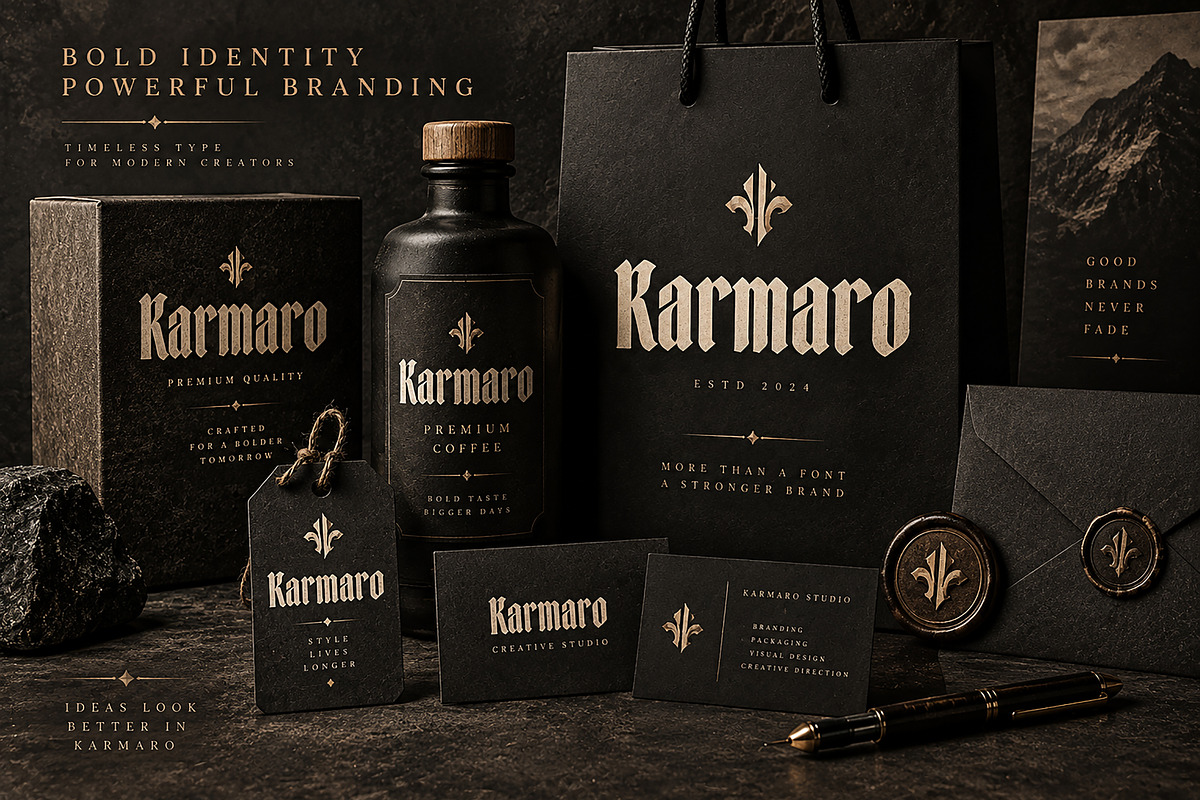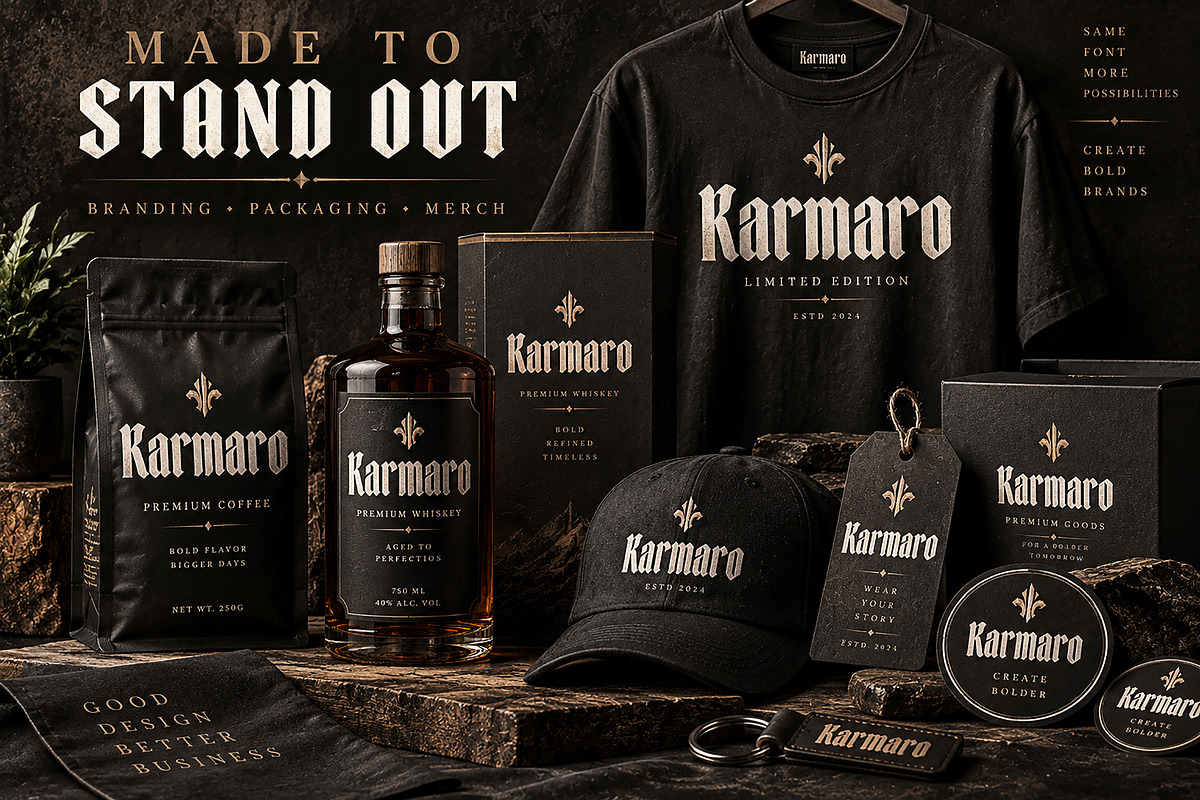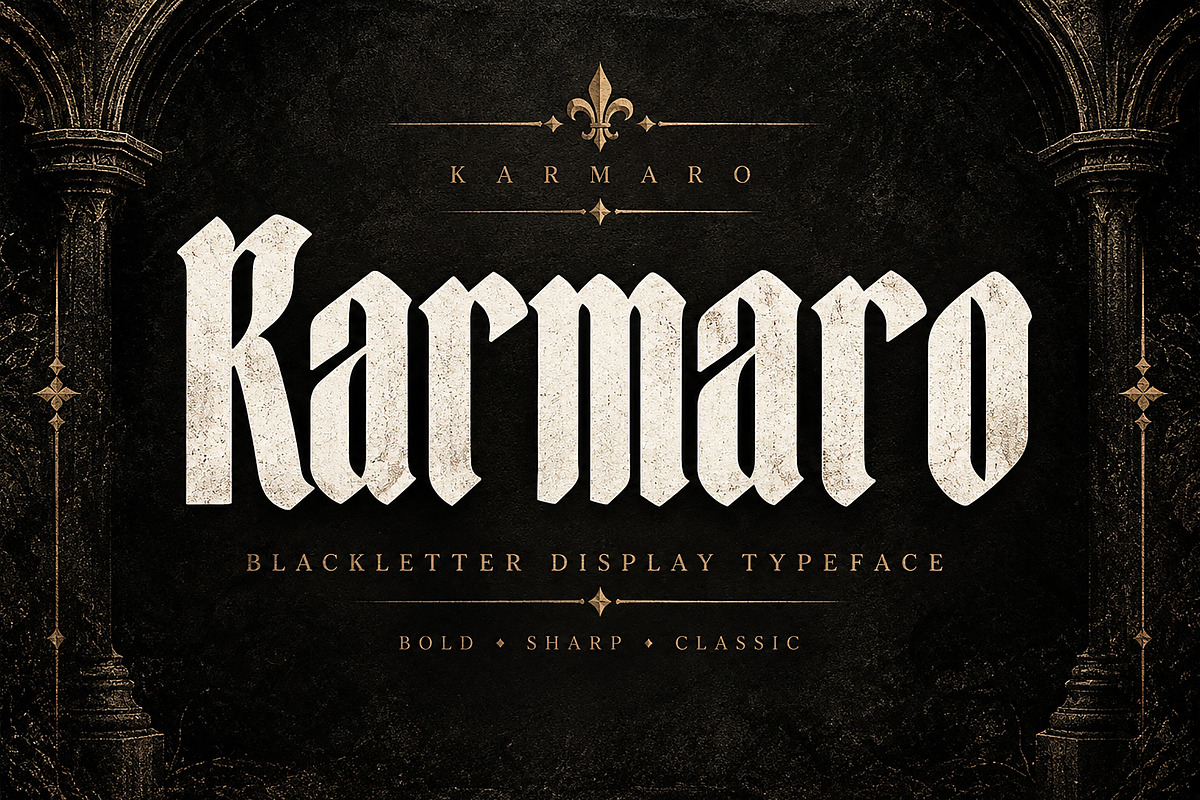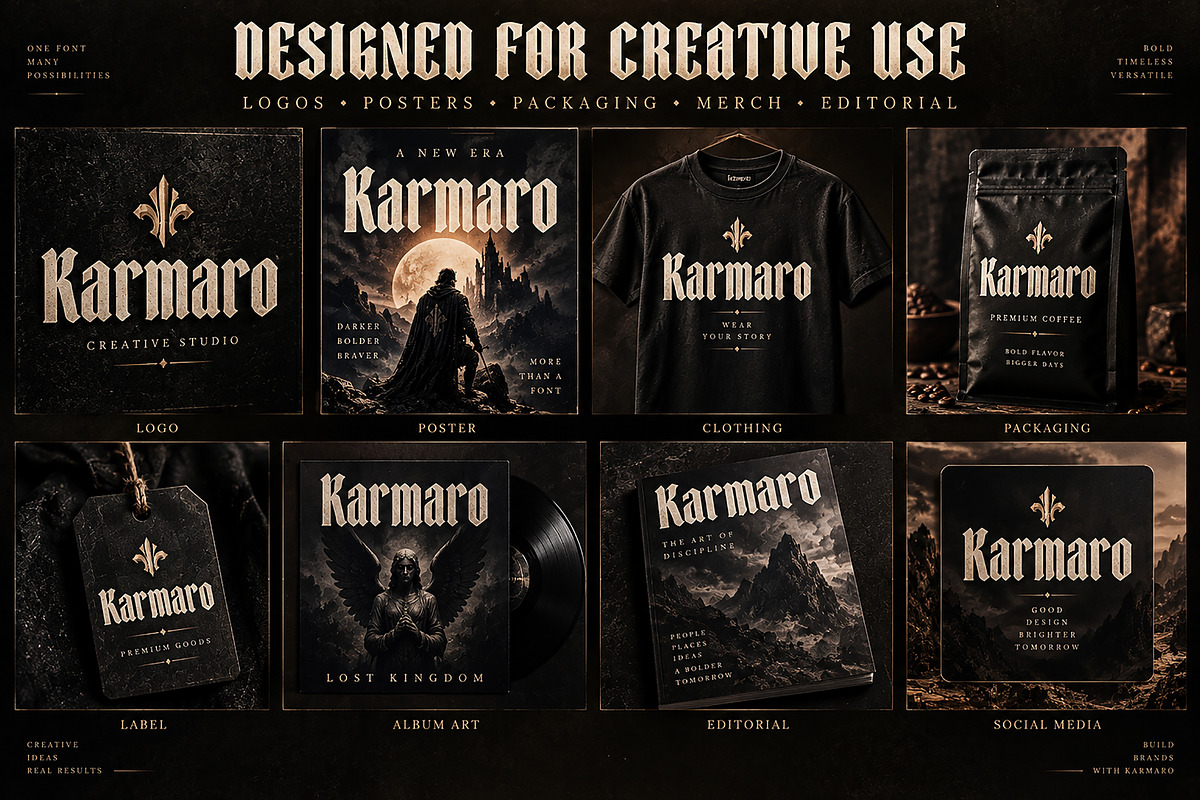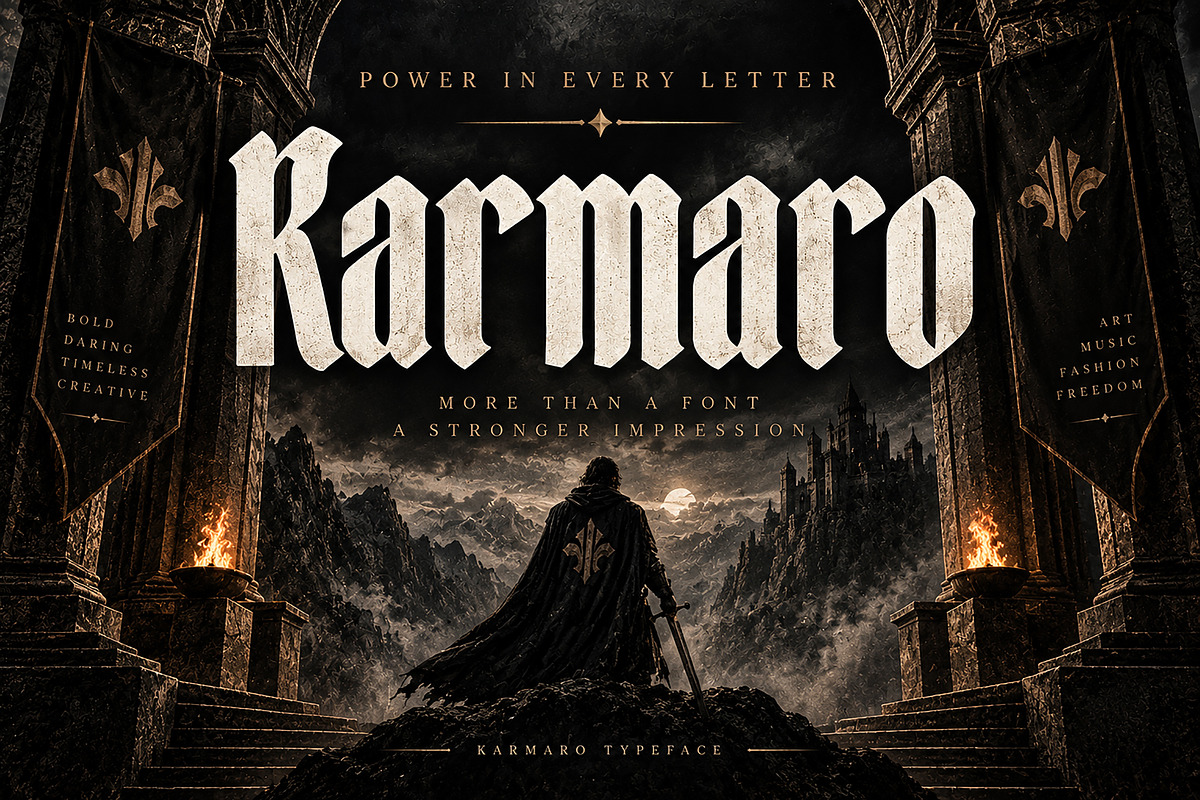
Karmaro
Karmaro – Bold Blackletter Display Typeface
Karmaro is a bold and striking blackletter display typeface crafted for designs that demand a strong, distinctive, and timeless visual identity.
Inspired by classic gothic and medieval lettering, Karmaro combines sharp structural details with a powerful display presence, making it an excellent choice for branding, logos, posters, apparel, packaging, album artwork, editorial designs, labels, and other creative projects.
Its dramatic blackletter character gives your typography a bold and memorable appearance while maintaining a refined vintage aesthetic. Whether you are creating a powerful brand identity, an atmospheric poster, a fashion graphic, or premium packaging, Karmaro is designed to make your words stand out.
Logo & Brand Identity
Gothic & Vintage Branding
Posters & Flyers
Album & Music Artwork
T-Shirt & Apparel Designs
Packaging & Product Labels
Tattoo & Streetwear Graphics
Editorial & Magazine Designs
Badges & Emblems
Headlines & Display Typography
Font Details
Font Name: Karmaro
Style: Bold Blackletter / Gothic Display
Font Type: Display Typeface
Karmaro is made for bold ideas, powerful visuals, and designs that deserve to be remembered.